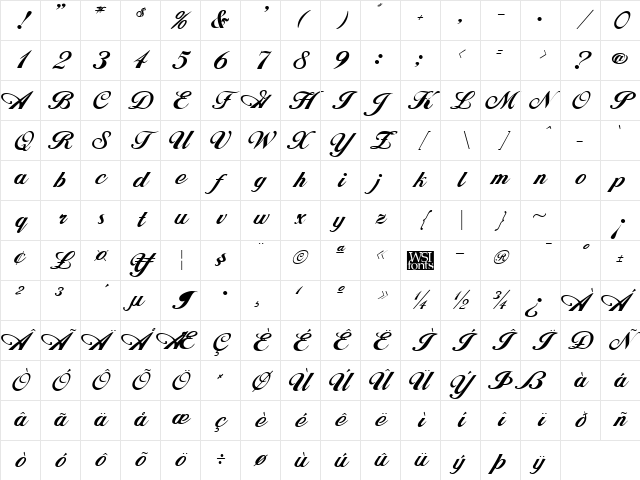
PT John Hancock Regular
Design Context for PT John Hancock
PT John Hancock is a composed and adaptable typeface that performs quietly and consistently across a wide range of design contexts.